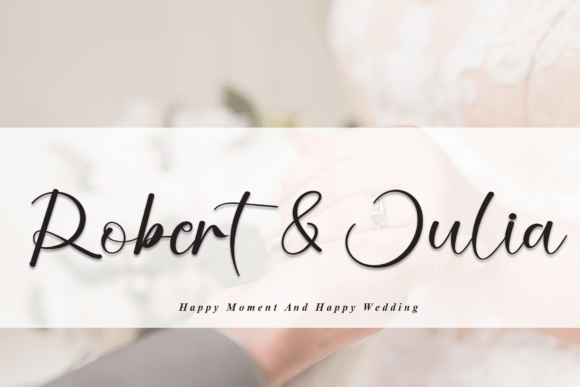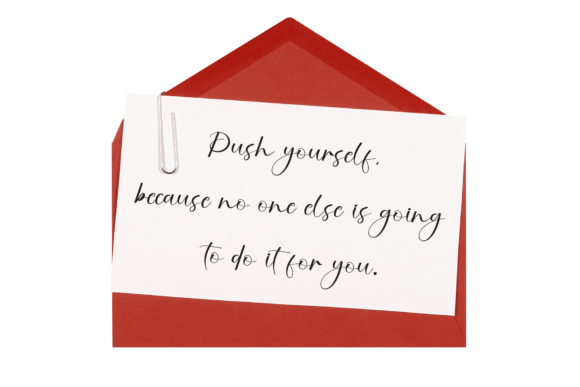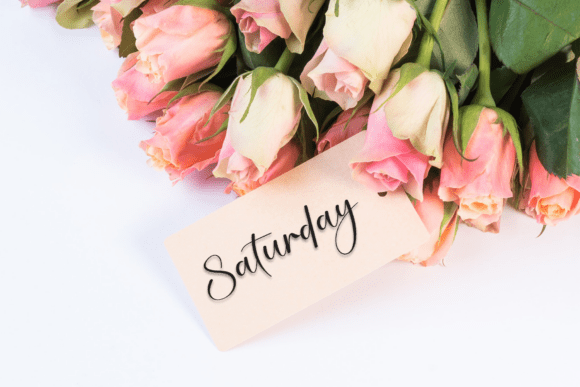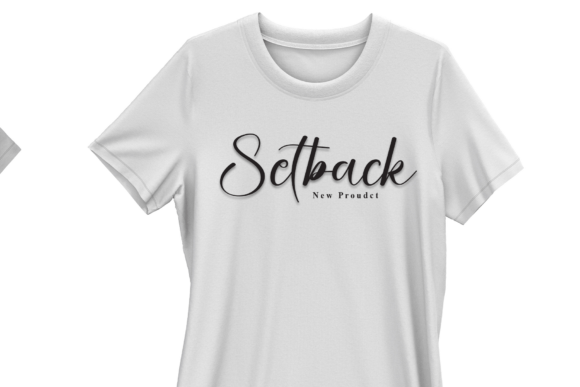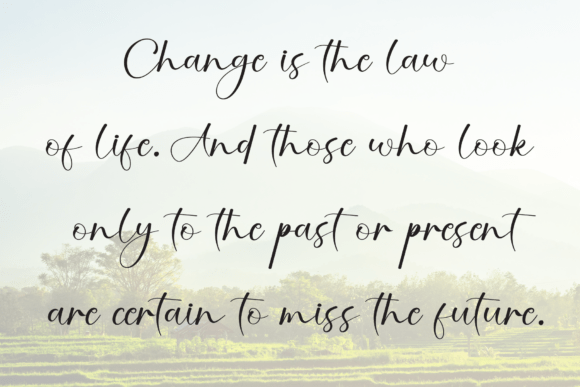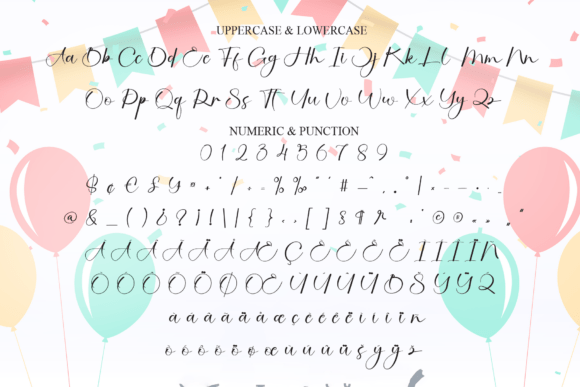
Introducing Birthday Font: Elevate Your Designs with Elegance and Charm
Are you looking for a font that can add a touch of sophistication and warmth to your designs? Look no further than Birthday Font, a stylish handwritten script font that combines elegance with a modern flair. With its flowing strokes and organic curves, this beautiful typeface is perfect for designers and crafters who want to bring a personal, refined touch to their projects.
The Characteristics of Birthday Font
Birthday Font is a carefully crafted handwritten script font that boasts a range of characteristics that make it truly special. Its flowing strokes and organic curves give it a natural, effortless feel that’s perfect for creating beautiful, eye-catching designs. The font’s elegant and refined appearance makes it ideal for use in a variety of projects, from branding and invitations to social media graphics and more.
One of the standout features of Birthday Font is its unique blend of traditional and modern elements. The font’s classic script style is updated with a modern flair, making it perfect for designers who want to create designs that are both timeless and on-trend. Whether you’re looking to create a sophisticated brand identity or a beautiful invitation, Birthday Font has the versatility and charm to help you achieve your goals.
Uses for Birthday Font
So, what can you use Birthday Font for? The possibilities are endless! Here are just a few ideas to get you started:
- Branding: Use Birthday Font to create a sophisticated brand identity that sets your business apart from the competition. The font’s elegant appearance makes it perfect for use in logos, business cards, and other marketing materials.
- Invitations: Create beautiful, eye-catching invitations for special occasions like weddings, birthdays, and baby showers. Birthday Font’s flowing strokes and organic curves make it perfect for creating elegant and refined invitations that will impress your guests.
- Social Media: Use Birthday Font to create stunning social media graphics that will help you stand out from the crowd. The font’s modern flair makes it perfect for creating eye-catching graphics that will grab the attention of your followers.
- Crafting: If you’re a crafter, Birthday Font is a great choice for your projects. Use it to create beautiful titles and headings for your scrapbooking, journaling, and other crafting projects.
Why Choose Birthday Font?
So, why should you choose Birthday Font for your designs? Here are just a few reasons:
- Elegance: Birthday Font is an elegant and refined typeface that will add a touch of sophistication to any project.
- Versatility: The font’s versatility makes it perfect for use in a variety of projects, from branding and invitations to social media graphics and more.
- Easy to Read: Despite its elegant appearance, Birthday Font is easy to read, making it perfect for use in body text as well as headings and titles.
- Unique: Birthday Font’s unique blend of traditional and modern elements makes it a standout choice for designers who want to create designs that are truly one-of-a-kind.
Tips for Using Birthday Font
Here are a few tips for using Birthday Font in your designs:
- Use it sparingly: While Birthday Font is beautiful, it can be overwhelming if used too much. Use it sparingly to create a focal point in your design.
- Pair it with a sans-serif font: Pair Birthday Font with a sans-serif font to create a beautiful contrast that will make your design stand out.
- Experiment with colors: Don’t be afraid to experiment with different colors and textures to add depth and interest to your design.
In conclusion, Birthday Font is a beautiful and versatile typeface that’s perfect for designers and crafters who want to add a touch of elegance and charm to their projects. With its flowing strokes, organic curves, and modern flair, this font is sure to become a favorite in your design arsenal. So why wait? Try Birthday Font today and see the difference it can make in your designs!